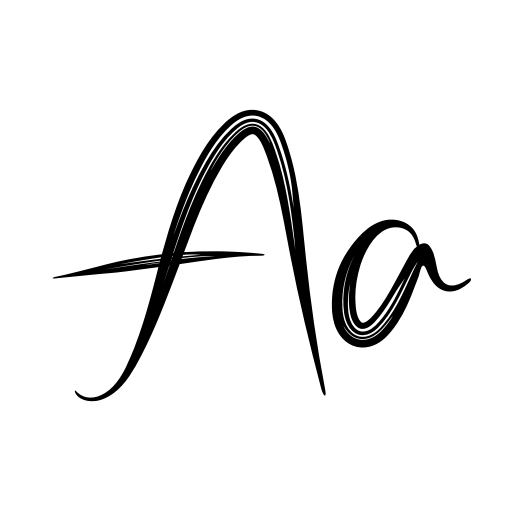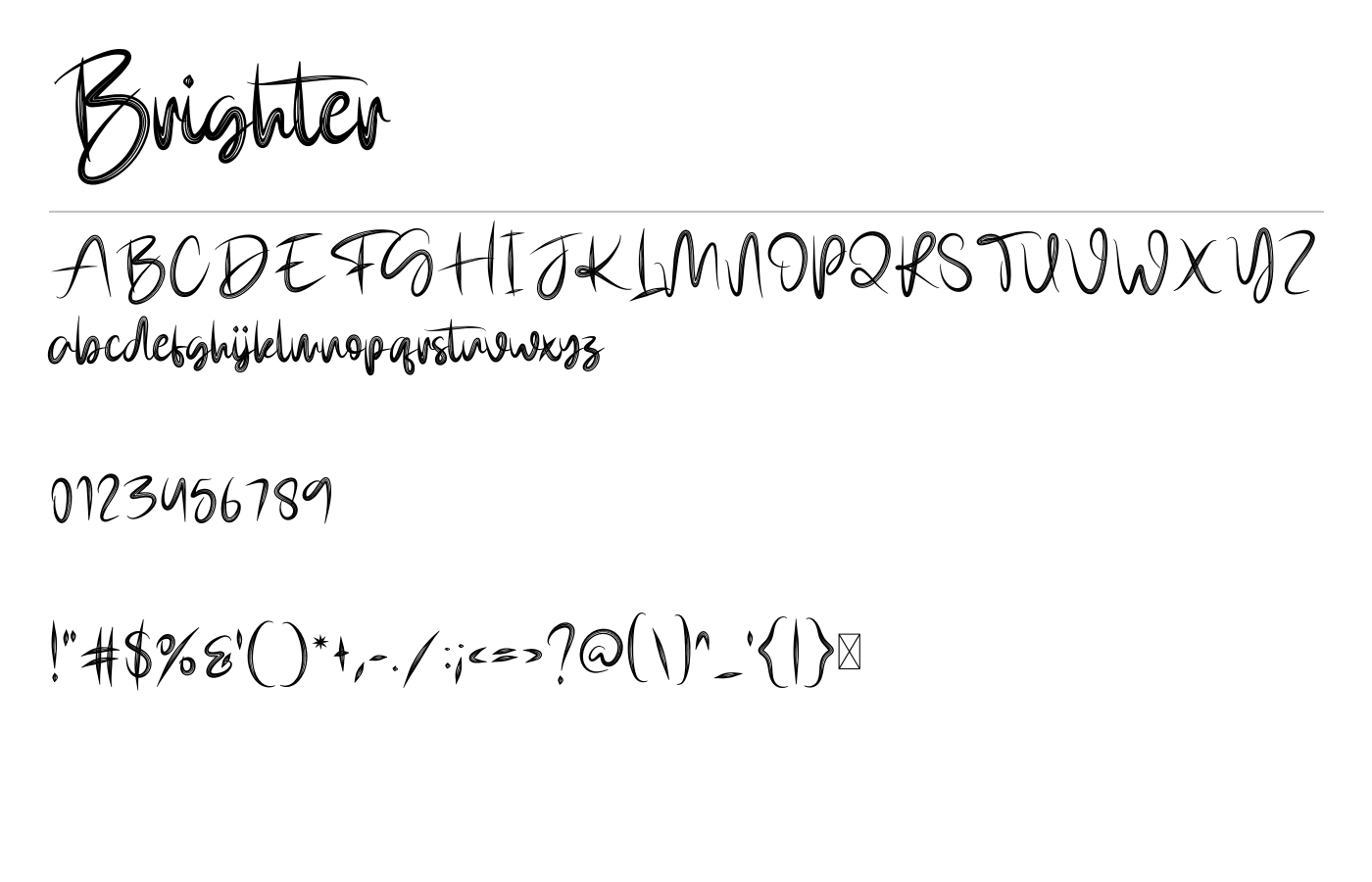
Brighter is a playful and energetic handwritten script font with a casual, brush-like style featuring tall, narrow letterforms and lively curves. Its dynamic strokes and slightly irregular shapes create a friendly and approachable feel, making it perfect for creative projects, branding, and invitations where a personal touch is desired. This font works best in display settings, bringing warmth and character to logos, social media graphics, and headline text.
Brighter Font
About Brighter Font